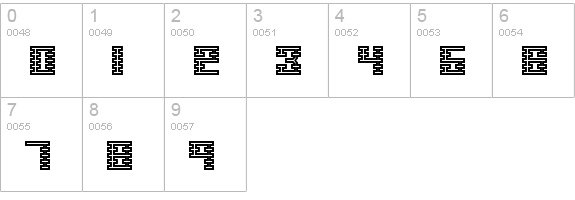
Scalelines Maze BRK Font Details
The Scalelines Maze BRK font is a captivating and intricate typeface that is sure to leave a lasting impression on any design project. With its unique maze-like patterns and bold lines, this font exudes a sense of mystery and intrigue, making it perfect for creating eye-catching headlines, logos, and signage. This font is not only visually appealing, but it is also incredibly versatile. Whether you're designing a poster, website, or packaging, Scalelines Maze BRK will effortlessly elevate your design to new heights. Its clean and sharp lines give it a modern and contemporary look, making it ideal for projects that require a sleek and polished aesthetic. The best part about Scalelines Maze BRK is that it is free to download at FontsMarket.com. This means that you can use this stunning font in your personal and commercial projects without any restrictions. Whether you're a professional designer or a hobbyist, having access to high-quality fonts like Scalelines Maze BRK can truly enhance your work. So why wait? Download Scalelines Maze BRK today and discover the endless possibilities this font has to offer. From captivating headlines to mesmerizing logos, this font is sure to make a bold statement in any design project. Don't miss out on the opportunity to add this stunning font to your collection – visit FontsMarket.com now and start exploring the world of Scalelines Maze BRK.